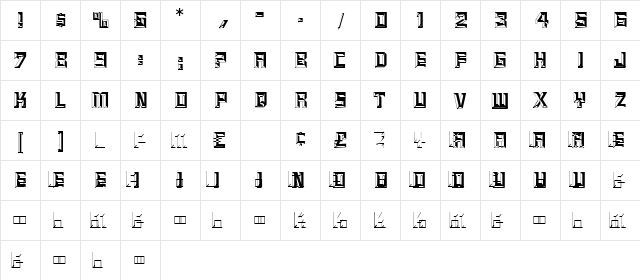
Spirit Regular
Design Context for Spirit Typeface
Spirit is a composed and adaptable typeface that performs quietly and consistently across a wide range of design contexts.